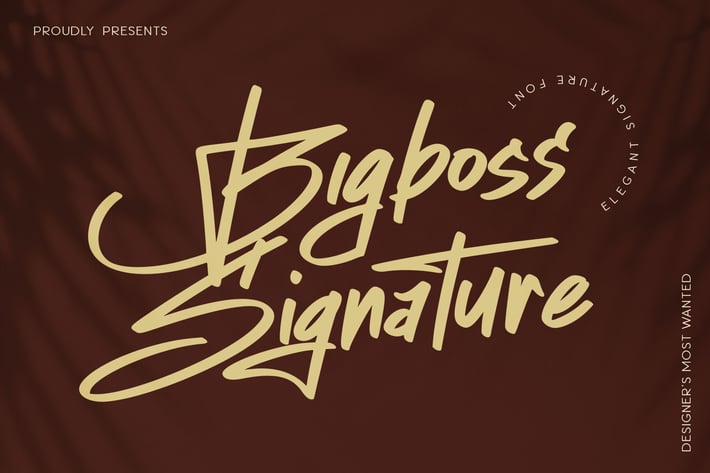
Bigboss Signature Business Script Font
Bigboss Signature is elegant script font. It can easily be matched to an incredibly large set of projects like logo, package, advertisement, magazine, , so add it to your creative ideas and notice how it makes them stand out!